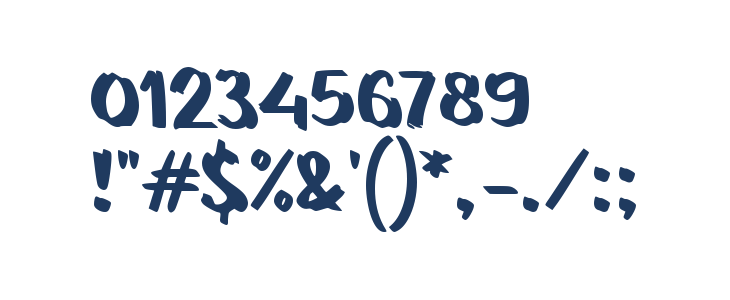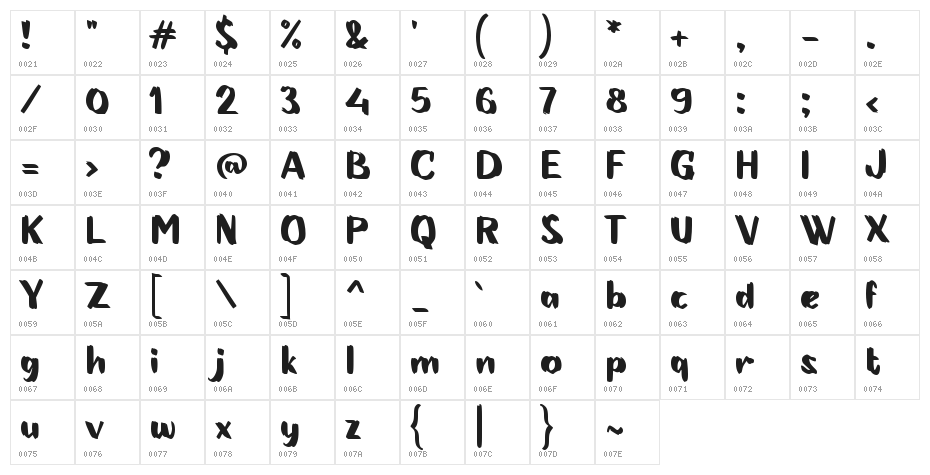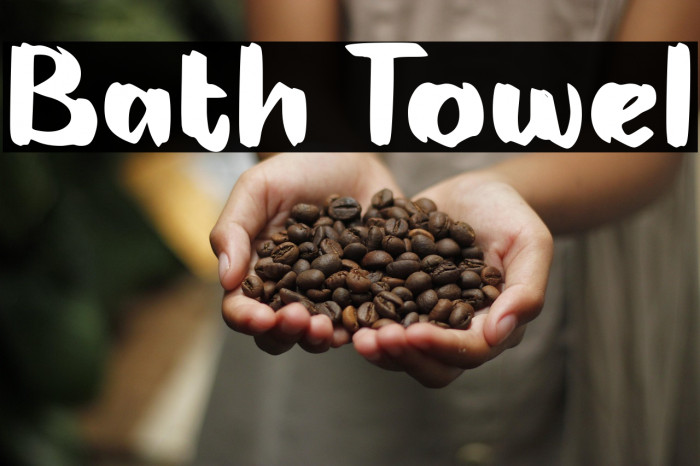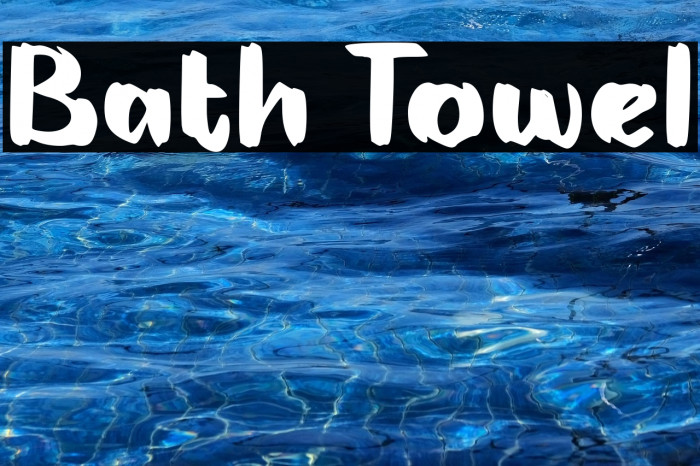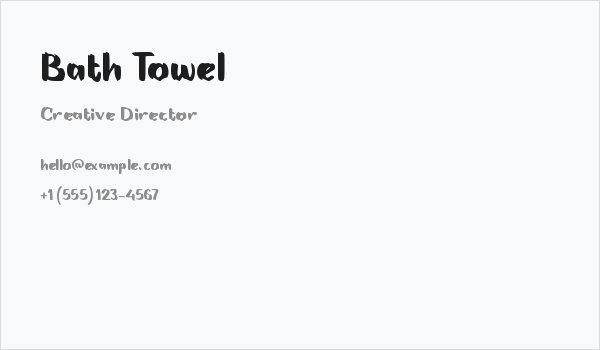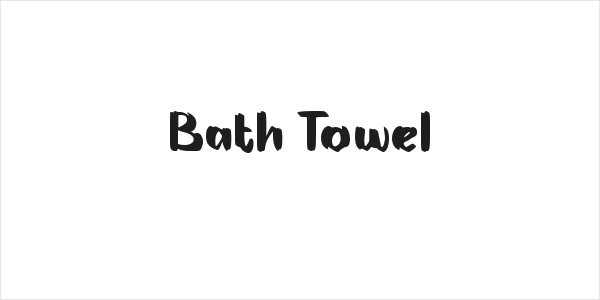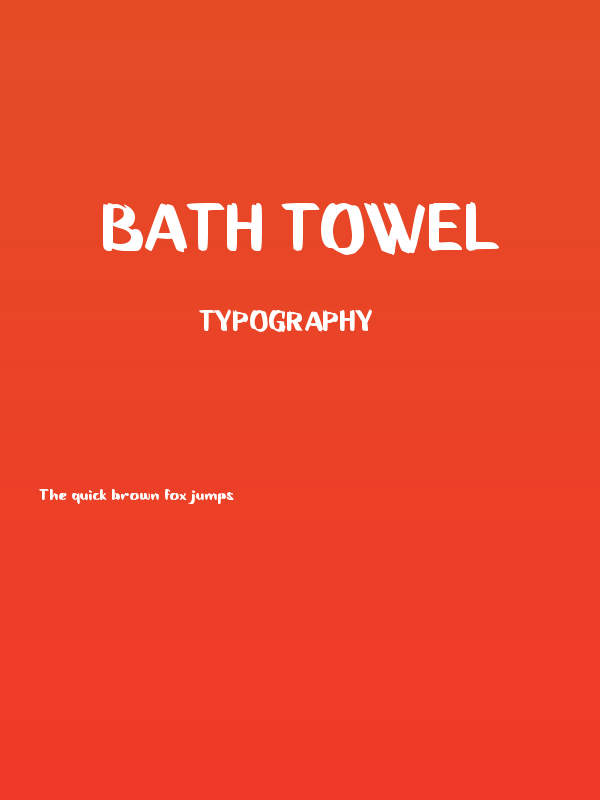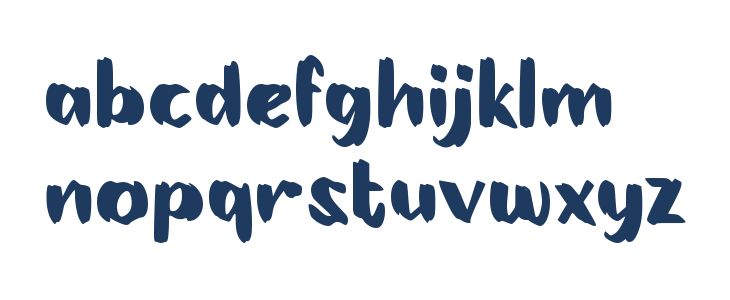
Bath Towel Font
Bath Towel Description
This font features a bold and expressive handwritten style, characterized by its thick, brush-like strokes and dynamic curves. The uppercase letters are robust and slightly irregular, adding a sense of movement and energy. Lowercase letters maintain the same boldness, with playful loops and a casual flair. Numbers are equally bold, with a consistent stroke width that ensures readability. Special characters are crafted with the same attention to detail, making them stand out. The overall appearance is energetic and informal, perfect for projects that require a personal touch.